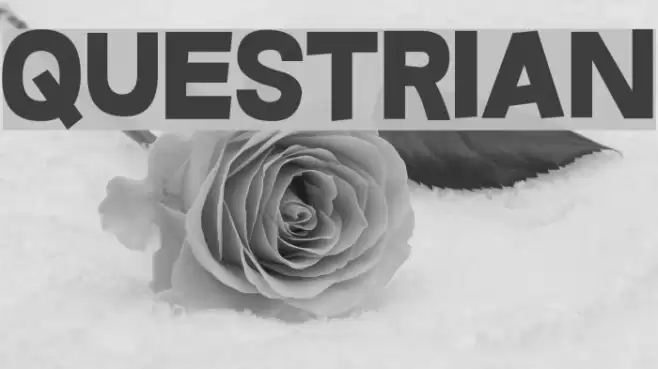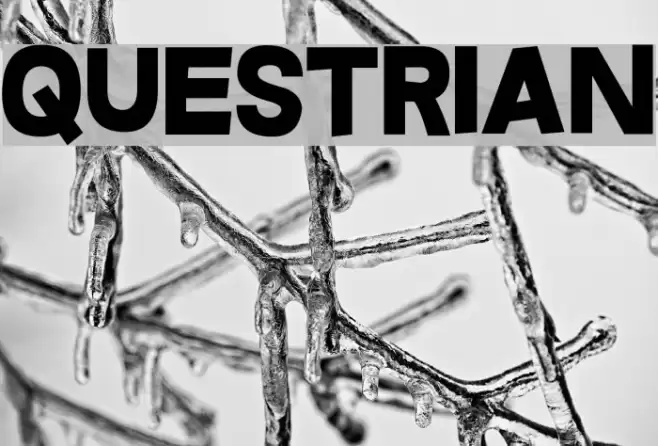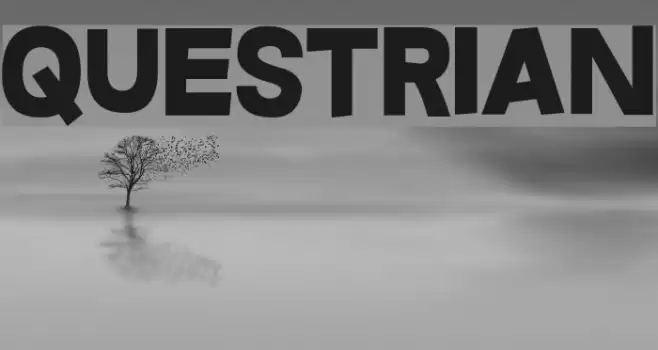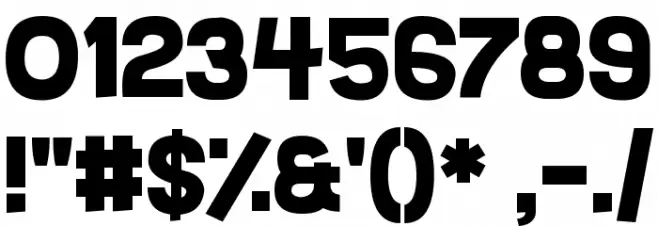
Questrian Font
Questrian Description
This font is characterized by its bold and impactful presence, featuring thick, uniform strokes that convey strength and assertiveness. The uppercase letters are particularly striking, with a geometric precision that enhances readability. The numerals and special characters maintain the same boldness, ensuring consistency across all text elements. Its design is straightforward, with minimal embellishments, making it suitable for a variety of applications where clarity and emphasis are required. The font's robust nature makes it ideal for headlines and attention-grabbing text, while its clean lines ensure it remains legible even at smaller sizes.
A bold, geometric font with thick, uniform strokes for impactful text from Uncategorized fonts.
- Proposed Projects: Ideal for branding, advertising, posters, and any project requiring strong, attention-grabbing text.